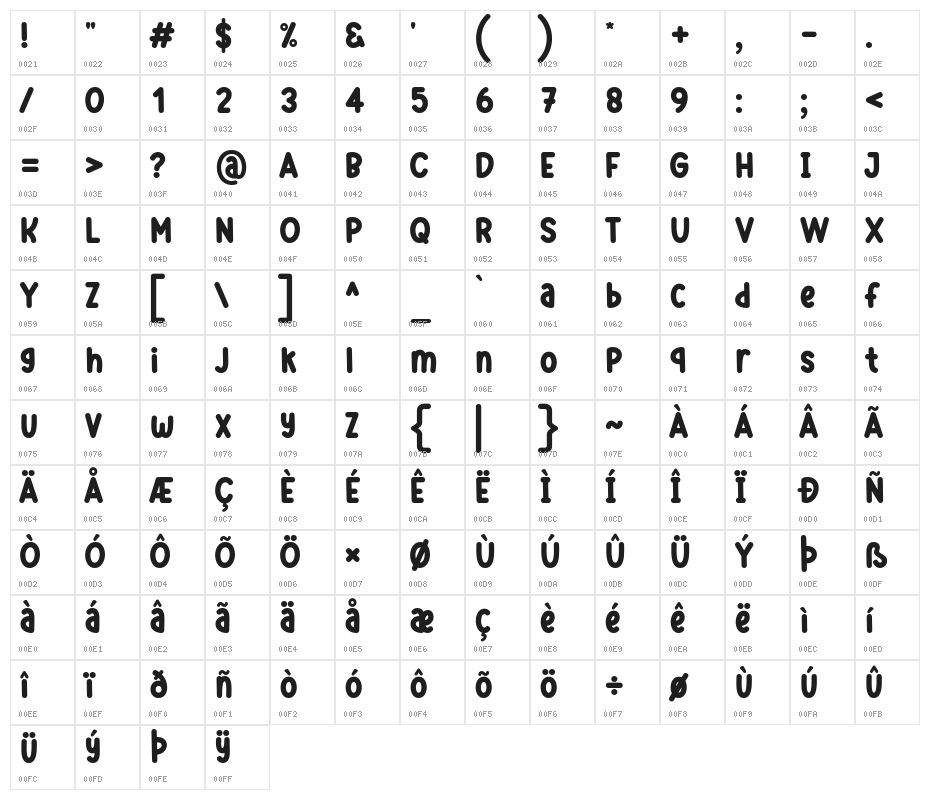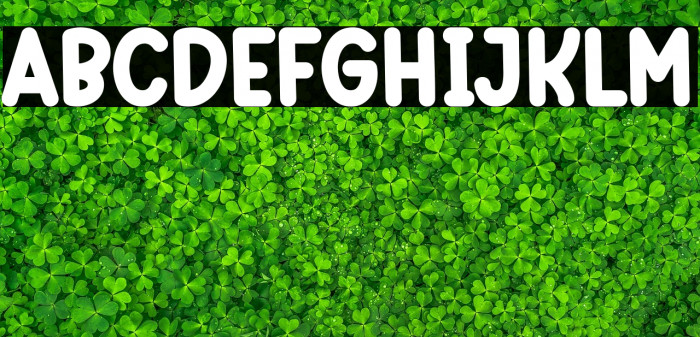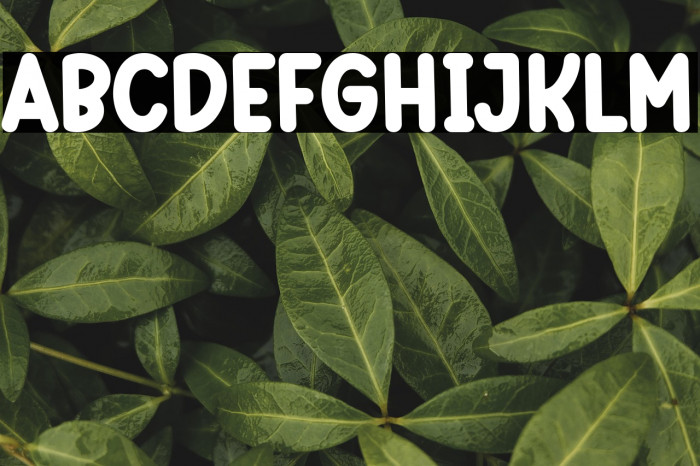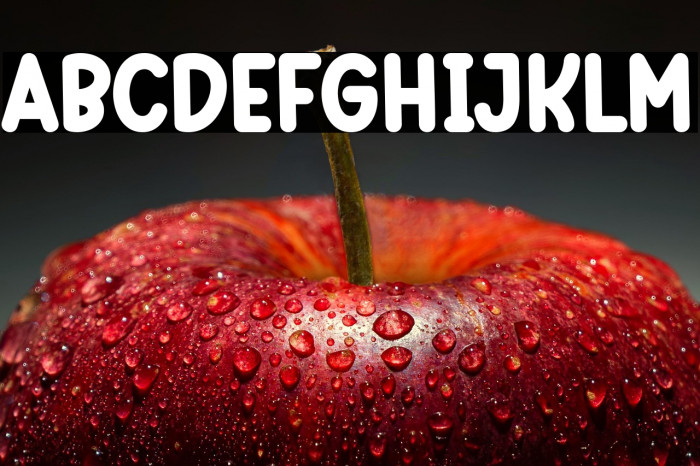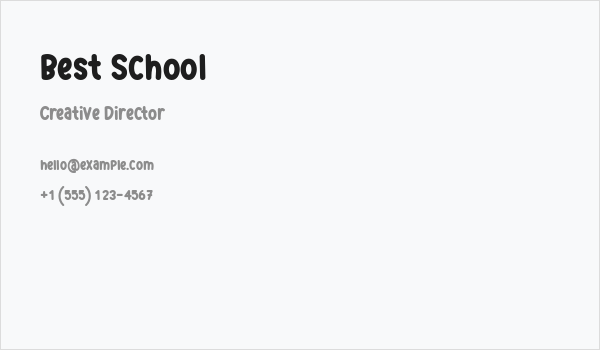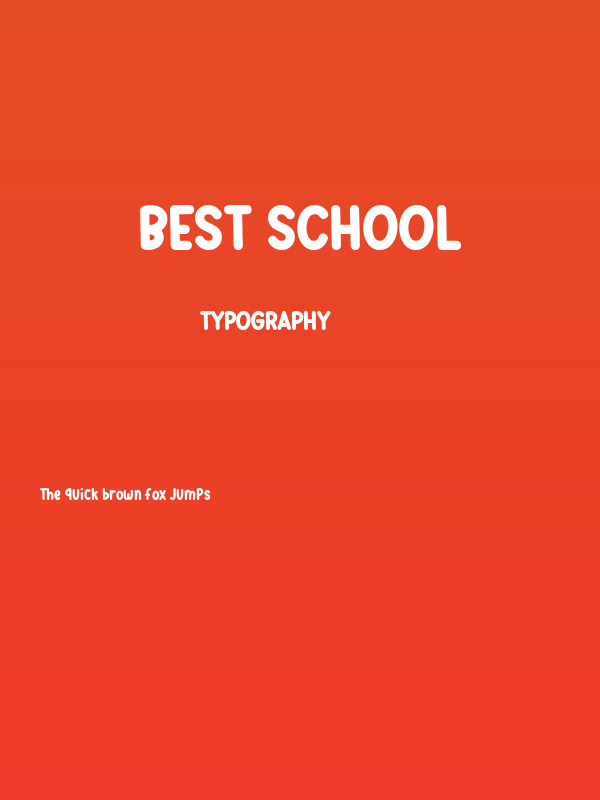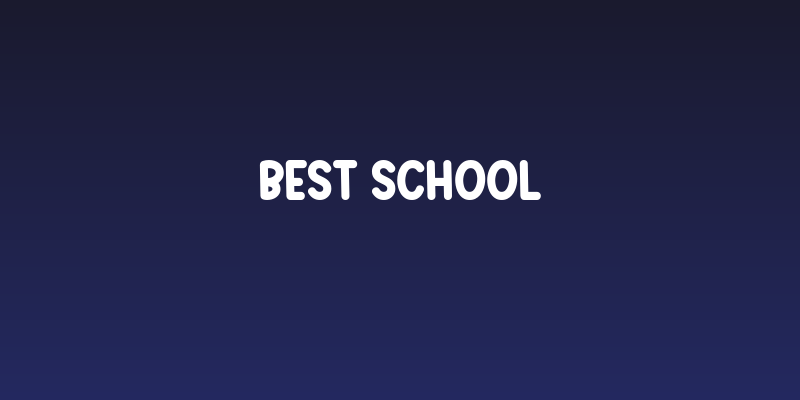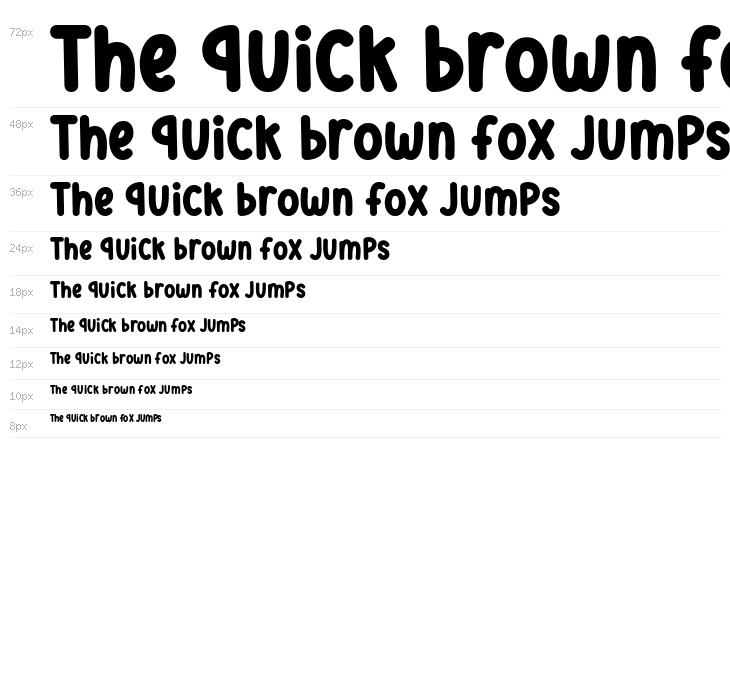
Best School Font
Best School Description
This playful and bold font features rounded, thick strokes that give it a friendly and approachable appearance. The characters are uniformly bold with a consistent stroke width, creating a cohesive look across both uppercase and lowercase letters. The numbers and special characters maintain the same playful style, making it versatile for various uses. The font's rounded edges and lack of sharp angles contribute to its informal and fun aesthetic, making it ideal for projects aimed at children or casual settings.
| Proposed Projects | Ideal for children's books, educational materials, playful branding, and casual event invitations. |